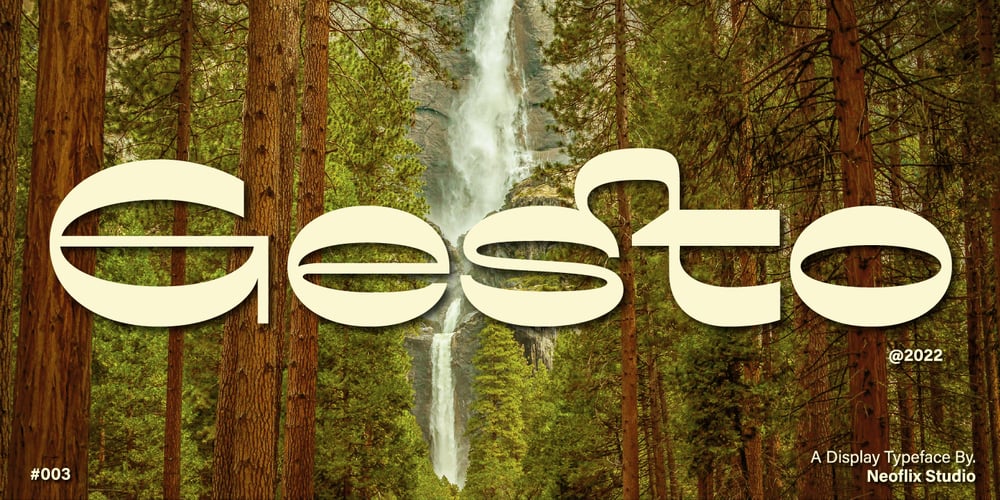
Gesto Font Family was designed by Irwan Riswanto and published by Neoflix Studio. Gesto contains 2 styles and family package options. Gesto is a extra wide retro sans serif with modern design. Gesto is a display typeface designed for use in wide size.Inspired by style design that is a currently popular. Gesto have some alternative letter and ligatures to make it easier for you to choose a letter that fits your design.Gesto is perfect use poster, headline, cover books, t-shirt and all you needs of every idea that you will pour in this modern era.Gesto was build 535 glyphs with numbers, punctuation, symbol with +75 languages.